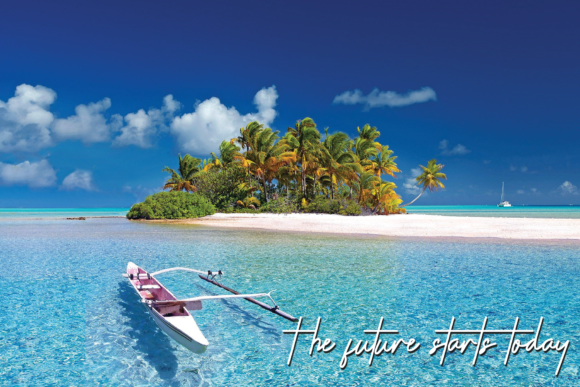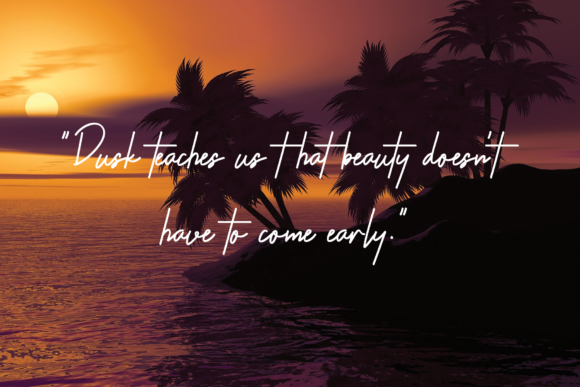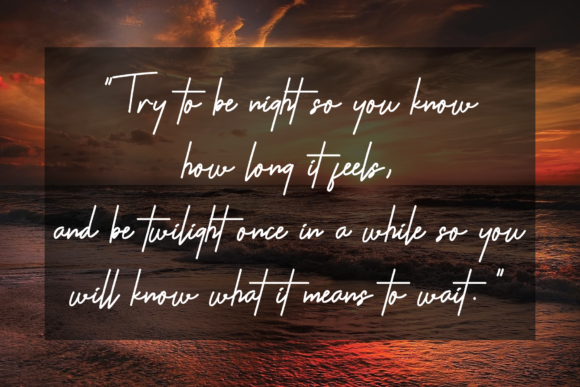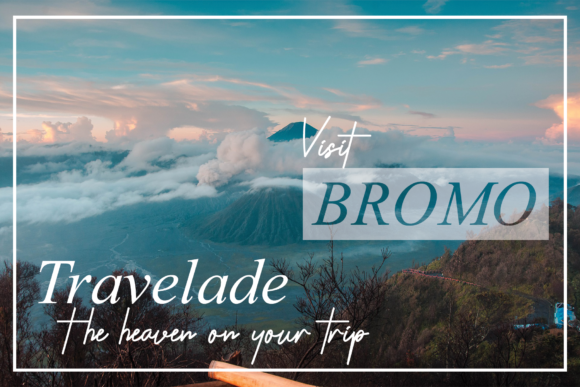
Paradise Font
About Paradise Font
Paradise is a relaxed handwritten font that adds a touch of ease and uniqueness to your creative ideas. With its casual and flowing style, this font helps your designs stand out and make a lasting impression.
The relaxed nature of Paradise brings a sense of ease and informality to your typographic compositions. Its organic letterforms and loose strokes contribute to a visually pleasing and laid-back aesthetic. Whether you’re working on branding, social media graphics, invitations, or any other design project, Paradise font enhances the overall visual appeal with its relaxed and effortless demeanor.
Adding Paradise font to your creative ideas allows them to stand out with a sense of uniqueness and charm. Its handwritten appearance brings a personal and authentic touch, making your designs feel approachable and inviting. This font adds a touch of free-spiritedness and creativity to your creations, making them visually engaging and appealing to a wide range of audiences.
The flowing style of Paradise font ensures that your designs have a distinct and memorable look. Its casual and handwritten character creates a sense of authenticity and adds a touch of personality to your creations.
Incorporating Paradise into your design process empowers you to make your ideas stand out with a relaxed and unique handwritten font. Its effortless and flowing style enhances the visual appeal and impact of your creations, making them visually captivating and memorable.
In summary, Paradise is a relaxed handwritten font that adds ease and uniqueness to your creative ideas. Its casual and flowing style brings a sense of authenticity and charm to your designs. Embrace the relaxed nature of Paradise font and notice how it helps your ideas stand out with a distinct and memorable look.